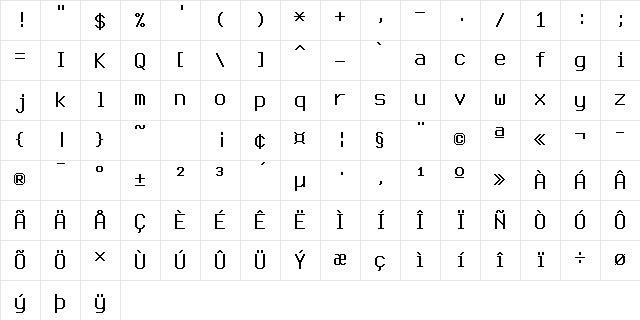
Complete Terminus (TTF) Bold glyph index. Displaying only characters natively supported by Terminus (TTF) Bold font.
Terminus (TTF) is a composed and adaptable typeface that performs quietly and consistently across a wide range of design contexts. Its bold stroke weight gives it real presence on the page.
Pro Tip: Use Terminus (TTF) in both headline and body roles to test its range before committing to a single application.